113-115: Font Futures
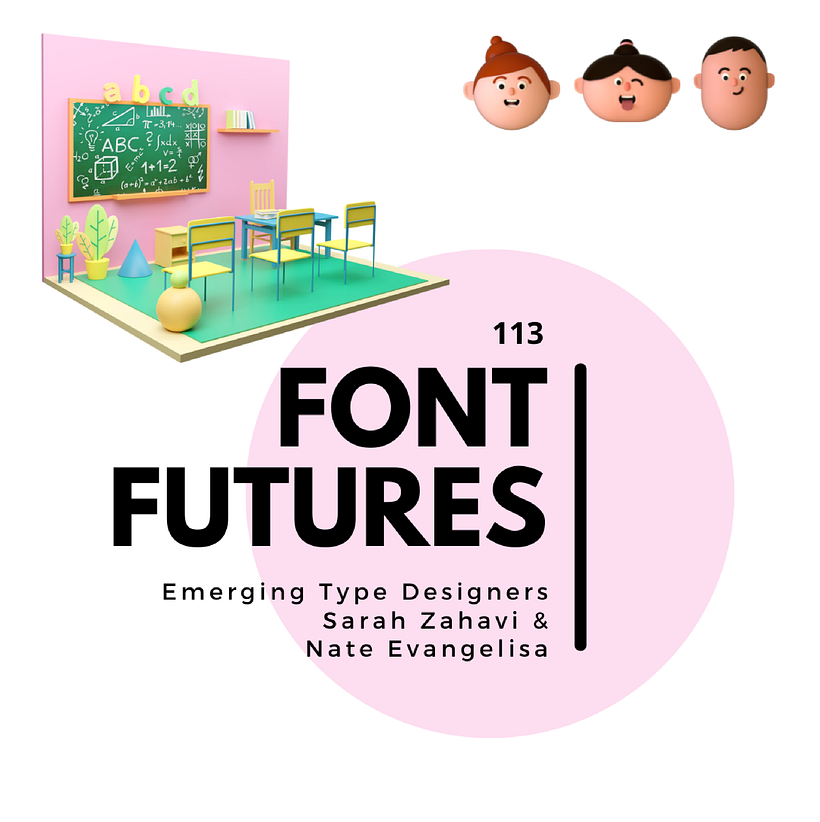
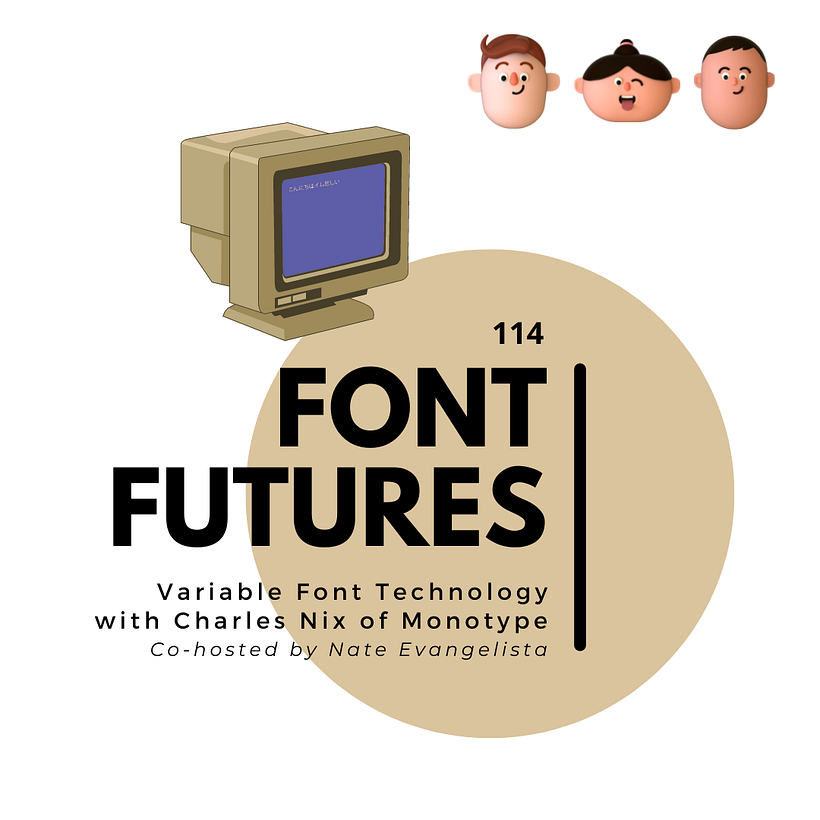
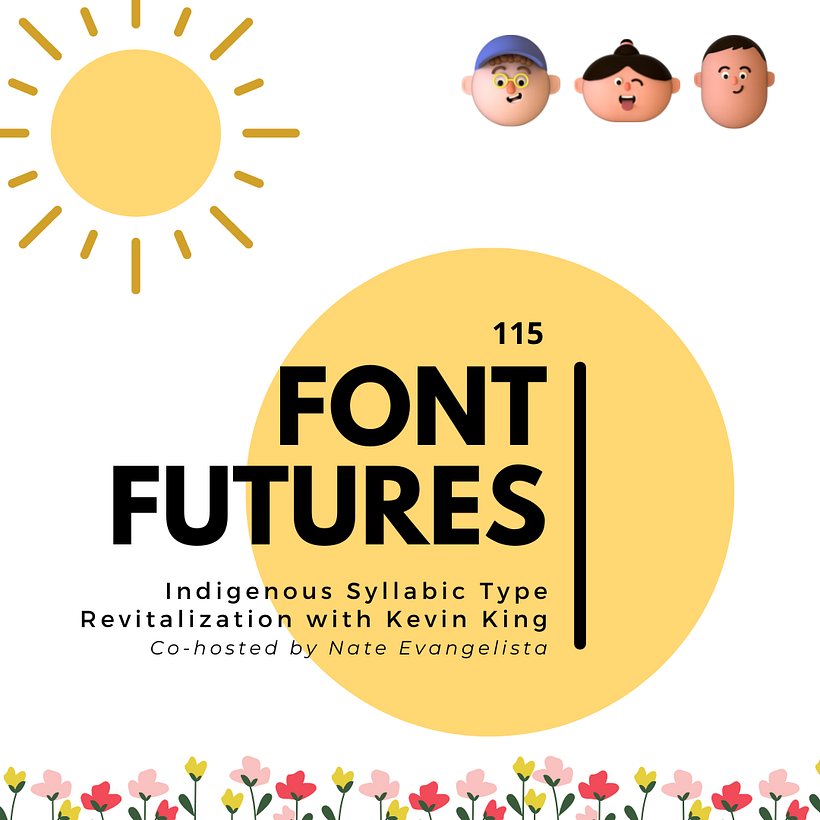
Welcome to the future… FONT FUTURES!
113: In this first of three episodes in the series, you’ll meet emerging typeface designers Nate Evangelista and Sarah Zahavi. You’ll learn about their original typeface designs (Aqua and Negative Space), as well as their process, sources of inspiration and their favourite glyphs. Nate’s original typeface is derived from feeling, while Sarah’s is derived from thinking. Nate’s is organic and natural, while Sarah’s was born on city streets. These two typefaces, their processes and their designers are incredibly different, but each is also incredibly successful in their interpretations of the creative brief.
114: Today’s guest is the legendary Charles Nix, Creative Type Director at Monotype. In the following talk, you’ll hear the who, what, why, when, where and how of variable type technology, including some incredible examples of variable type that already exist in the world. You’ll hear about the technology behind variable type, as well as the creative solutions possible for both the digital and physical world when designers are able to play with type as a medium. Variable font technology allows creatives to move beyond the binary to space that’s fluid and dimensional, exploring a spectrum of type. This episode could be called ‘Variable Type 101’ and it’s jam-packed with insight!
115: In this episode, we meet Toronto-based type designer, Kevin King, who is working to revitalize and preserve North American Indigenous languages in digital spaces. You’ll hear Kevin’s career origin story, the challenges that exist in digital spaces for minority language support, current barriers to access and the process involved in helping to remove these barriers. You’ll learn the process involved in taking on a project of this magnitude, including a research methodology that helped Kevin reach out to Indigenous communities and work with language keepers directly. Finally, Kevin provides excellent advice for up-and-coming type designers.